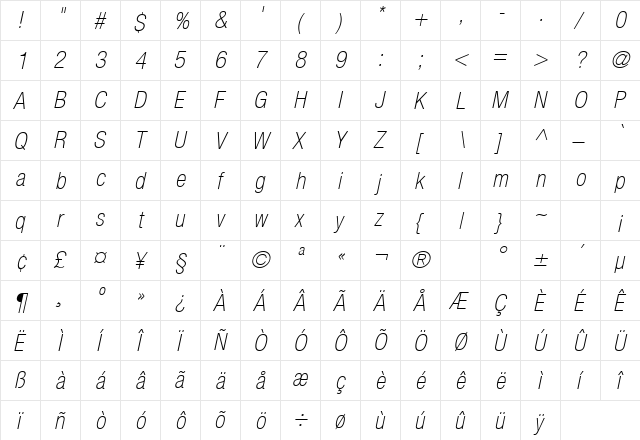
HeaveneticaCond3 ThinOblSH
Design Context for HeaveneticaCond3 Typeface
HeaveneticaCond3 is a composed and adaptable typeface that performs quietly and consistently across a wide range of design contexts. The delicate stroke weight brings airiness and refinement to layouts. The condensed width makes it efficient for tight spaces without sacrificing legibility.